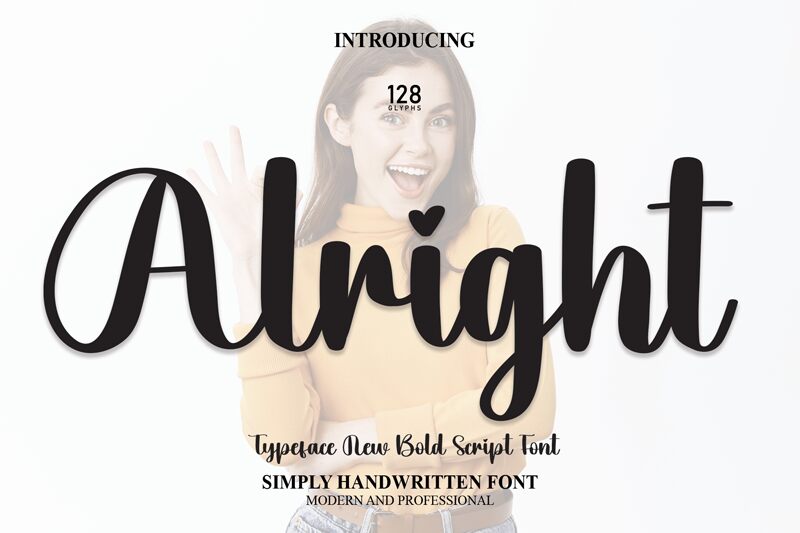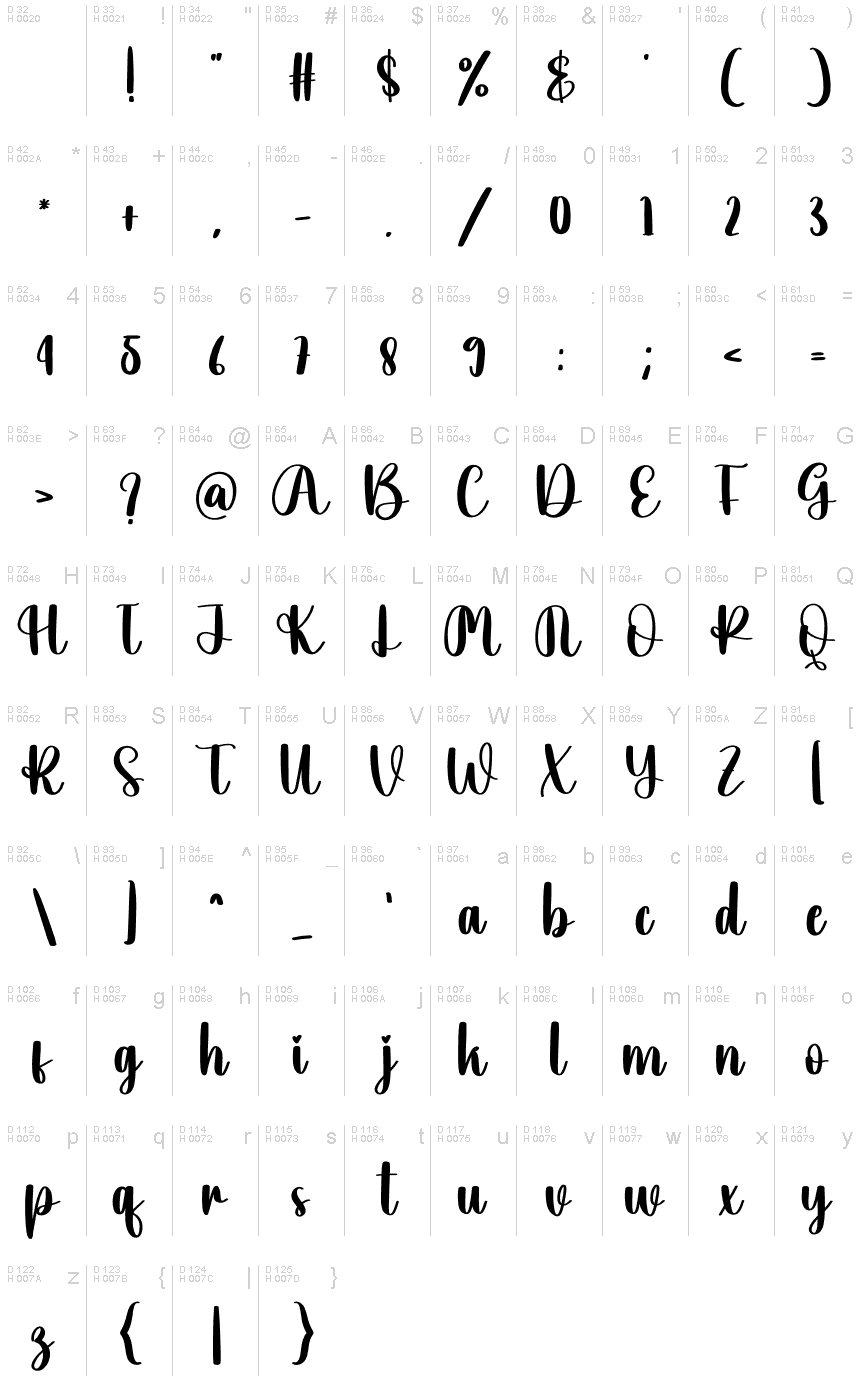
Alright
Meet Alright, a charming handwritten font by Scratchones.
Its semi-light weight adds a touch of delicacy to any project, making it perfect for children's books, greeting cards, and invitations. With its cute and playful style, Alright brings a sense of whimsy to party decorations, baby shower themes, and even social media posts. Whether you're designing a website header or crafting personalized stationery, this font is sure to add a delightful and unique flair.
Let Alright transform your creations into captivating works of art with its endearing handwritten charm.
The latest style letters are perfect for wall displays, wedding invitations, social media post logos, advertisements, product packaging, product designs, labels, photography, watermarks, invitations, stationery, and any project that requires taste handwriting.